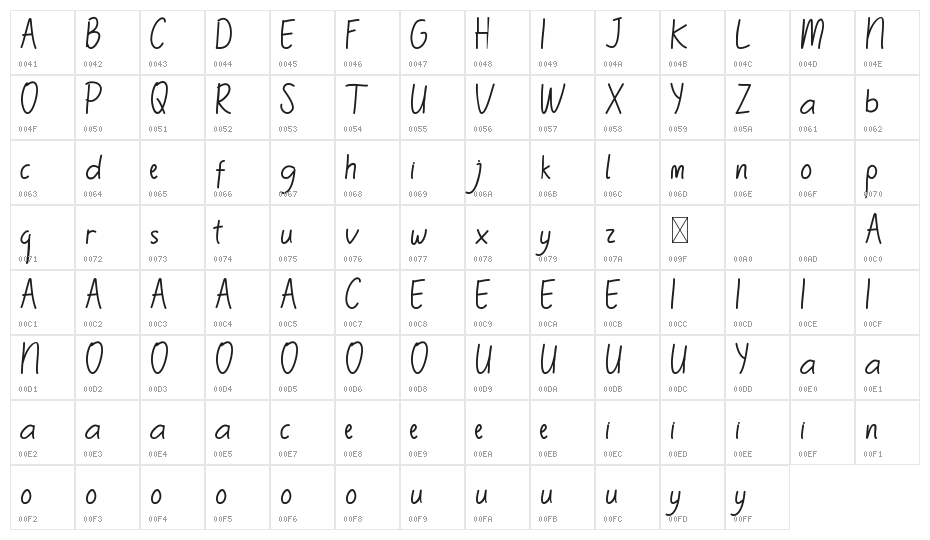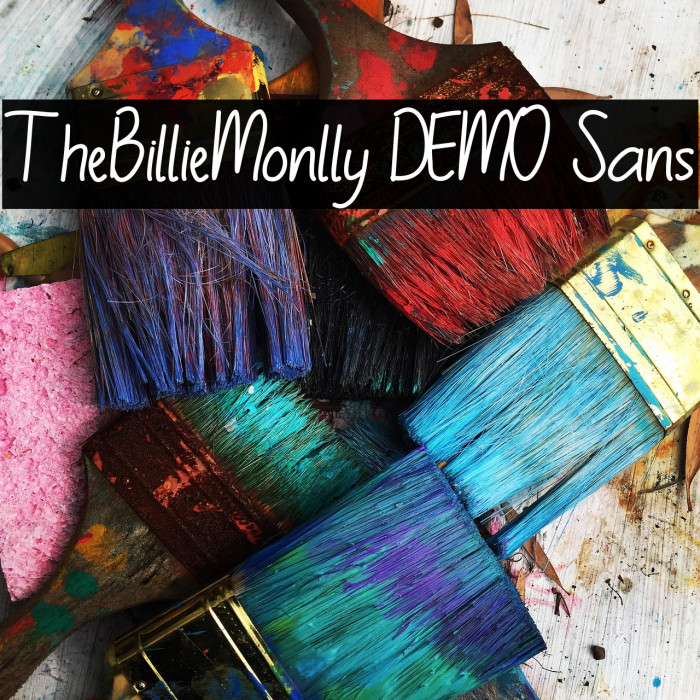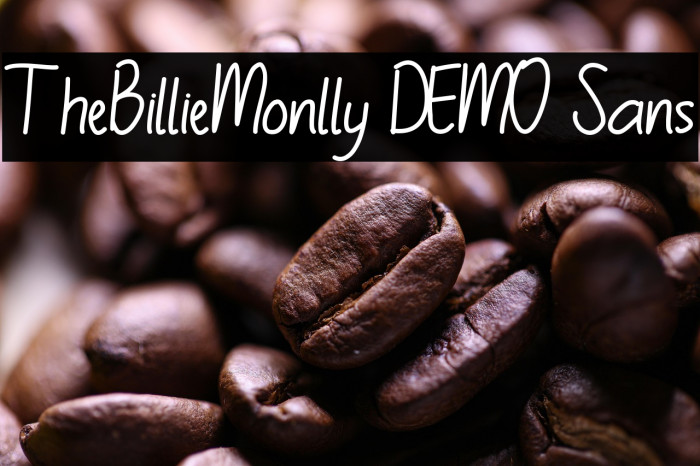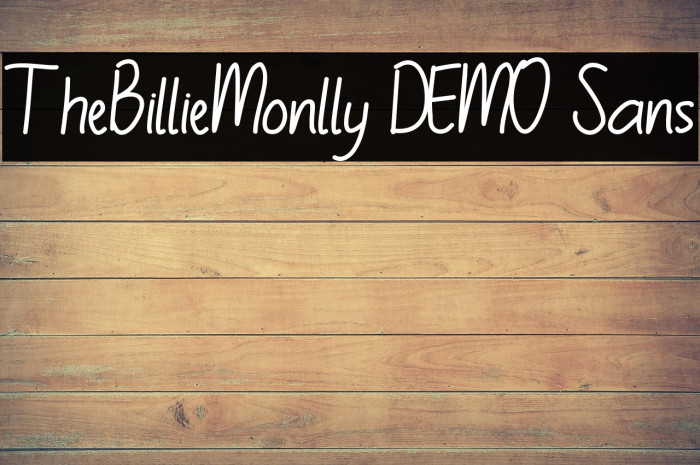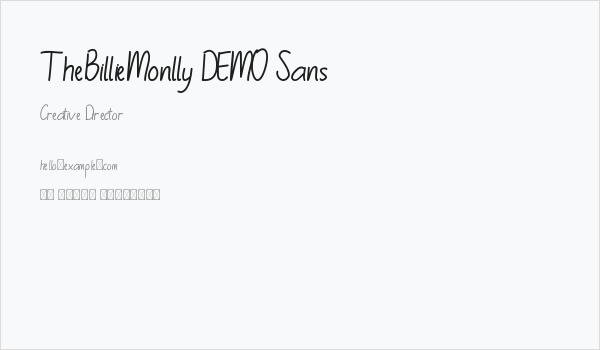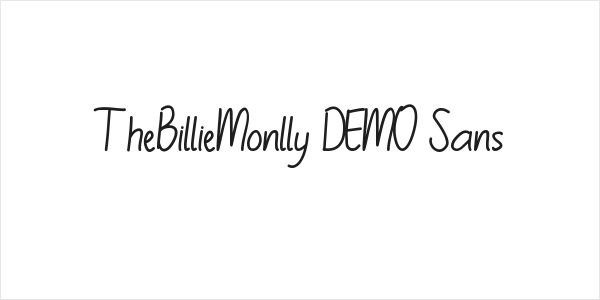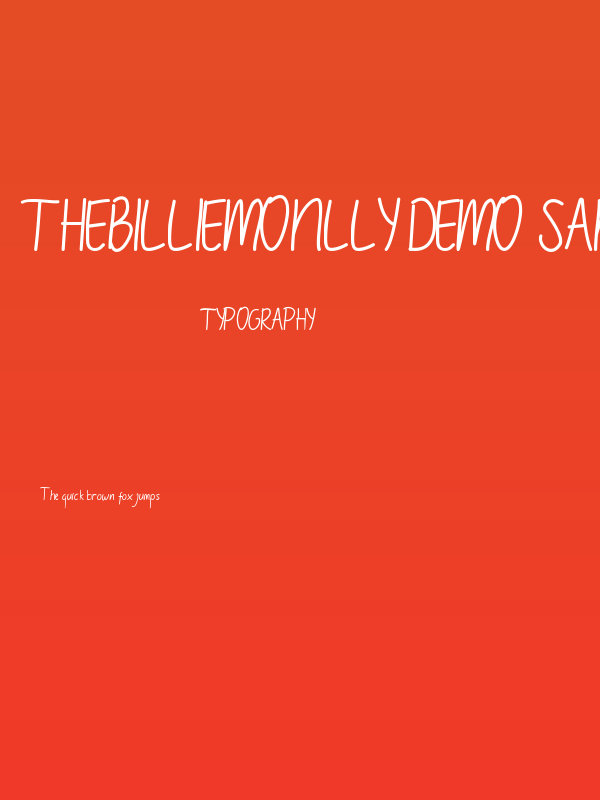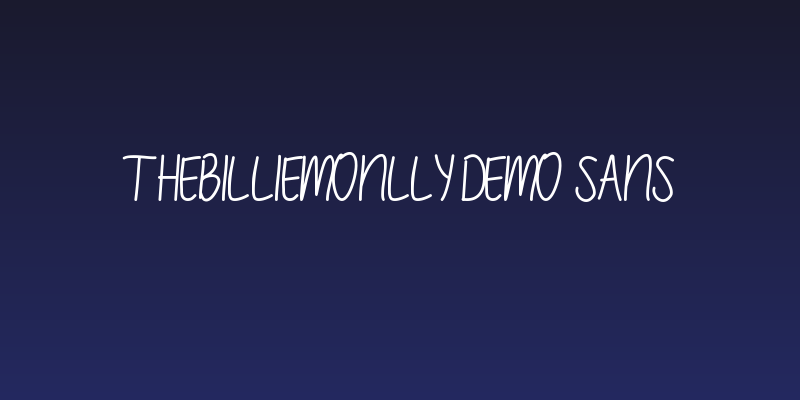
TheBillieMonlly DEMO Sans Font
TheBillieMonlly DEMO Sans Description
This font showcases a playful and casual handwritten style, characterized by its smooth, flowing lines and slightly irregular shapes. The uppercase and lowercase letters maintain a consistent height, giving it a cohesive look. The strokes are moderately thick, providing a balanced weight that is neither too bold nor too light. The characters are slightly slanted, adding a dynamic and informal touch. The spacing between characters is normal, ensuring readability while maintaining the font's relaxed aesthetic. This font's overall style is modern and approachable, making it suitable for a variety of creative projects.
| Use Case | Logos, Headlines, Informal Text |
| Proposed Projects | Ideal for greeting cards, invitations, personal branding, and social media graphics. |